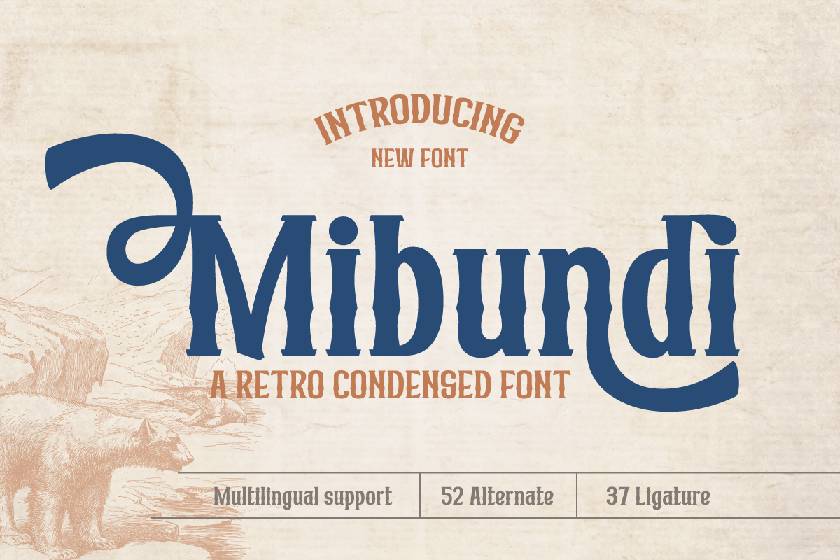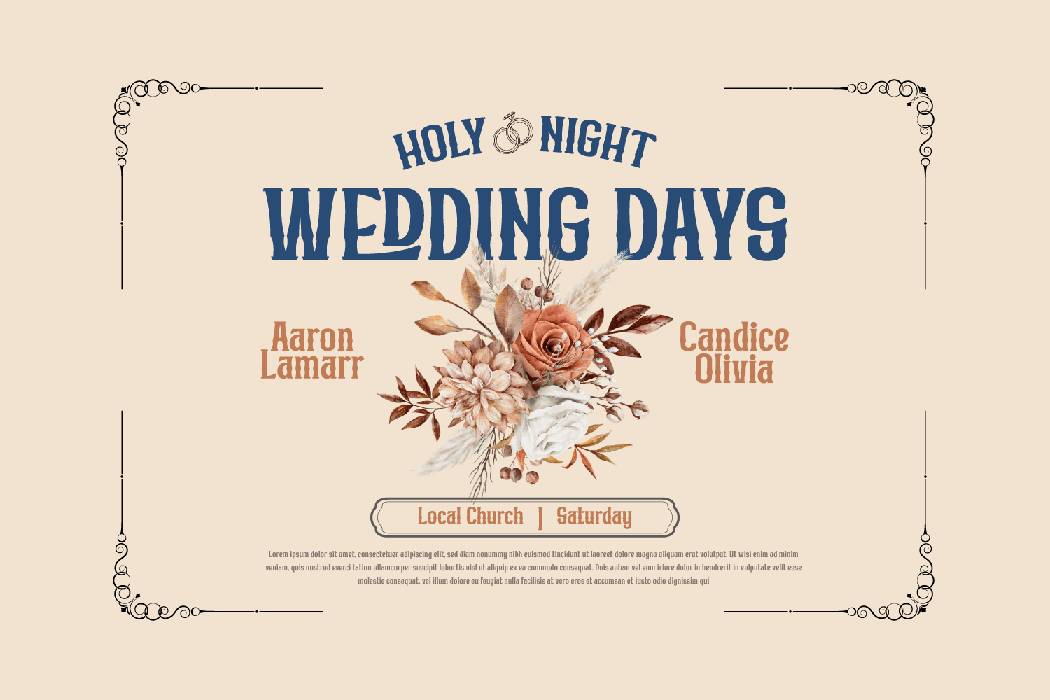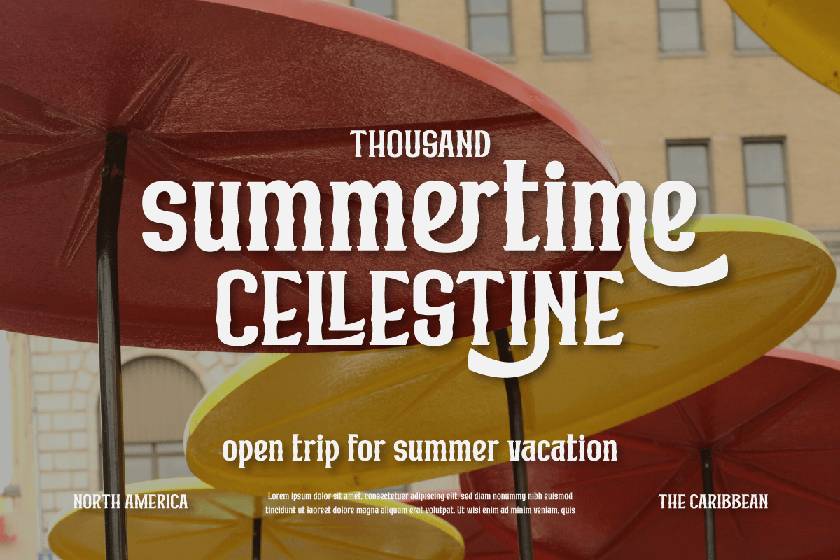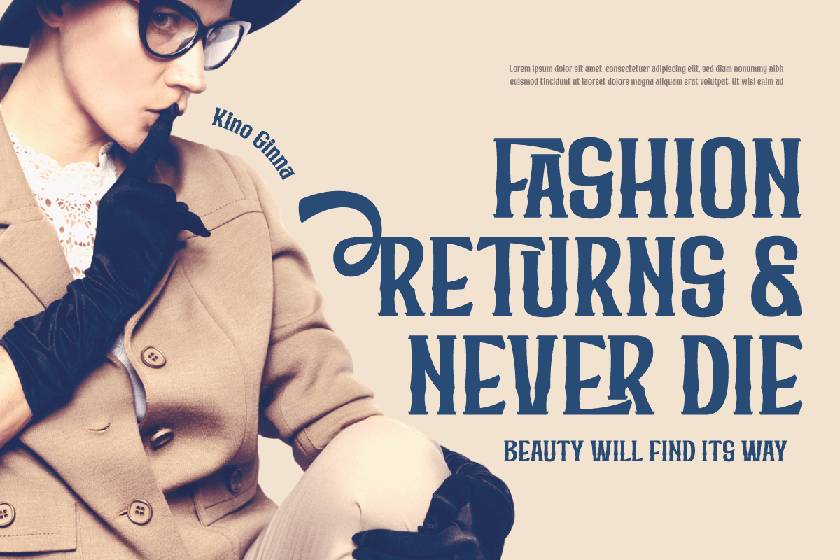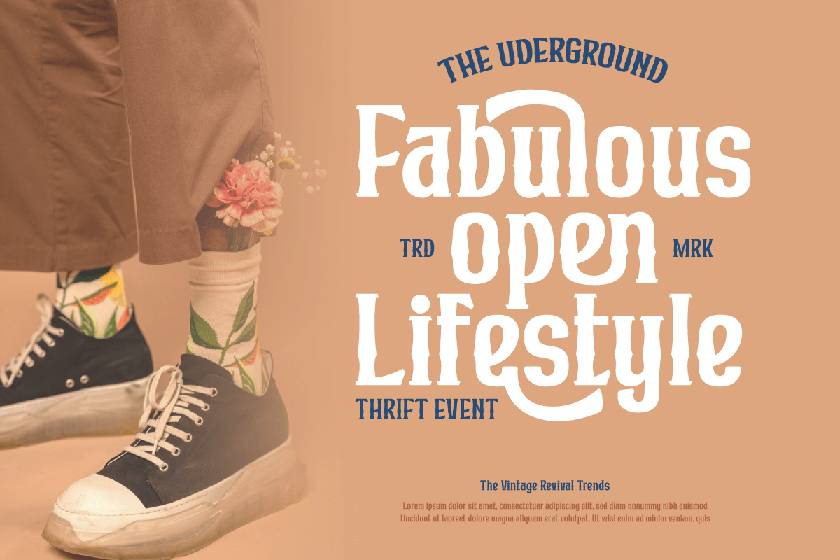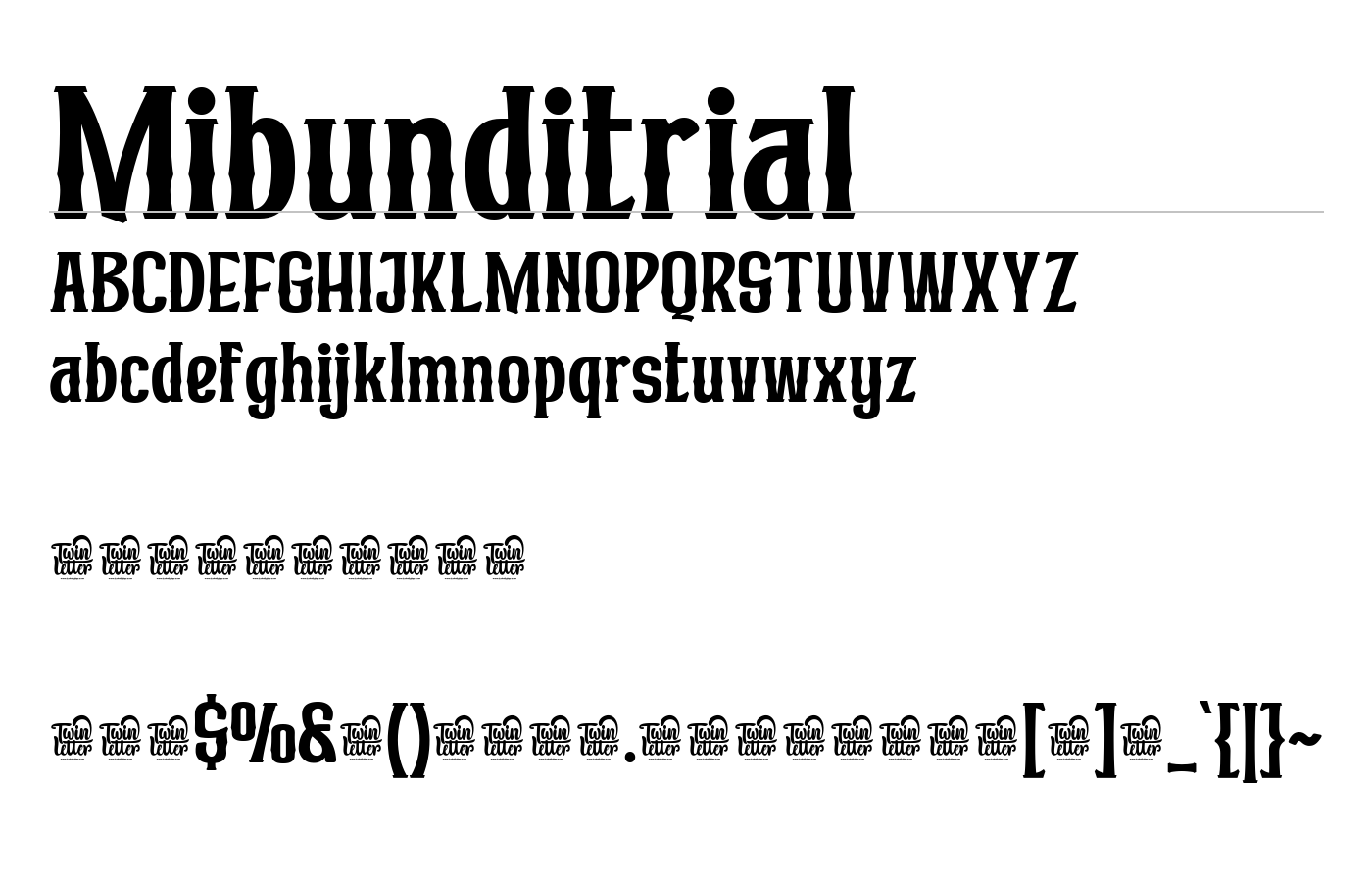
Mibundi is a bold, condensed serif font with a distinctive vintage charm, featuring high contrast between thick and thin strokes and slightly playful, irregular serifs that give it a handcrafted feel. Its tall x-height and quirky letterforms make it ideal for attention-grabbing headlines, logos, and editorial designs that want to evoke a nostalgic yet unique personality. This font works well where a strong, memorable presence is needed without sacrificing readability.
Mibundi Font
About Mibundi Font